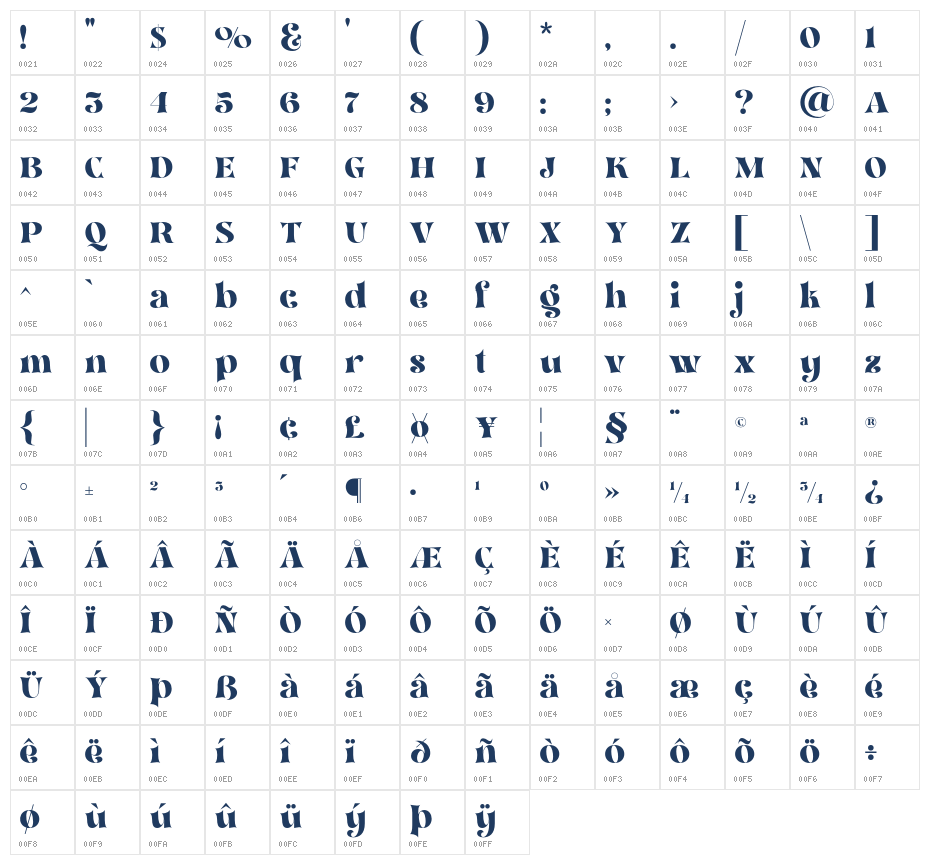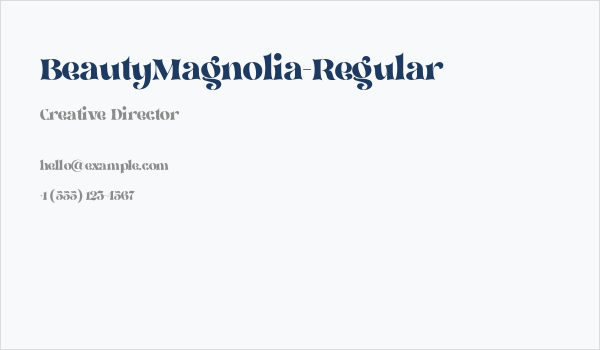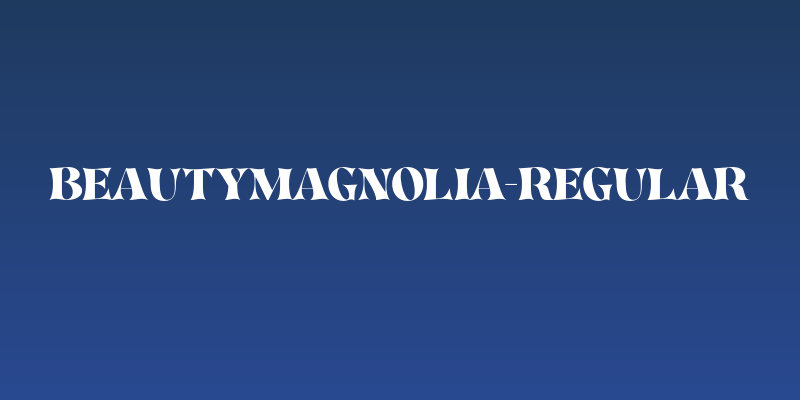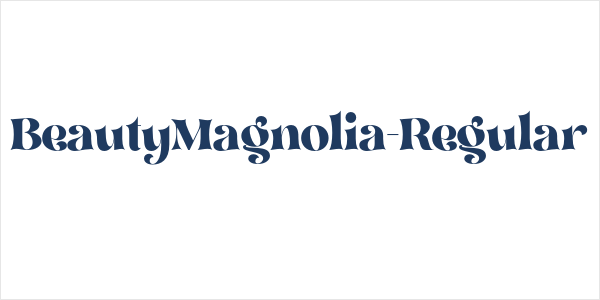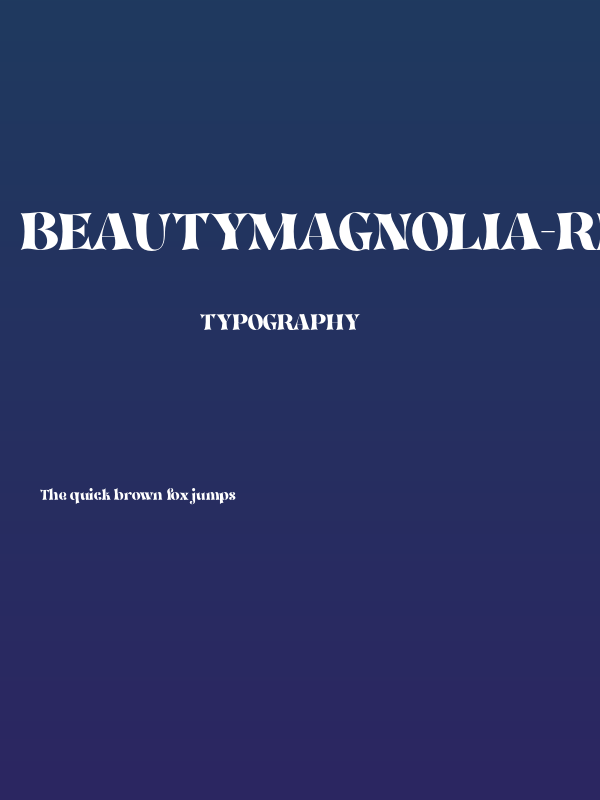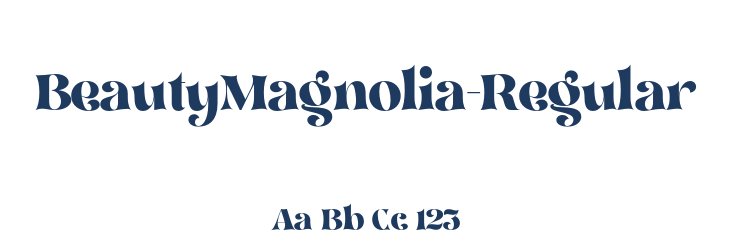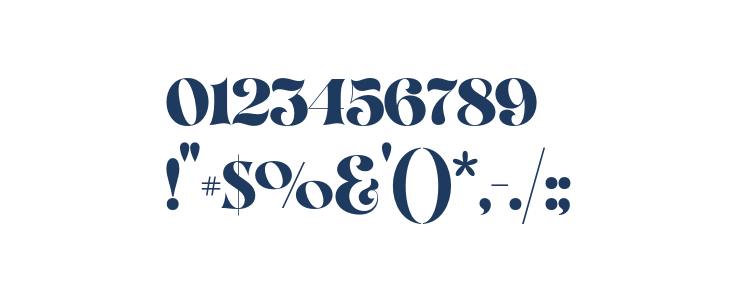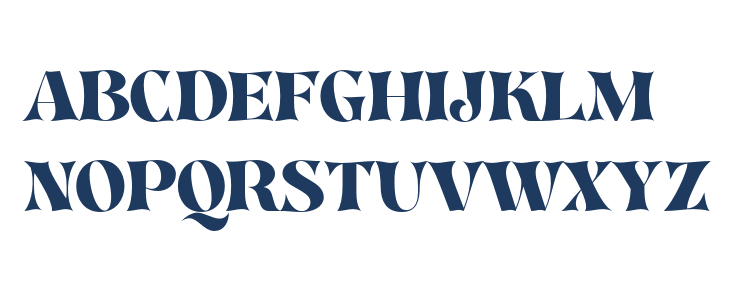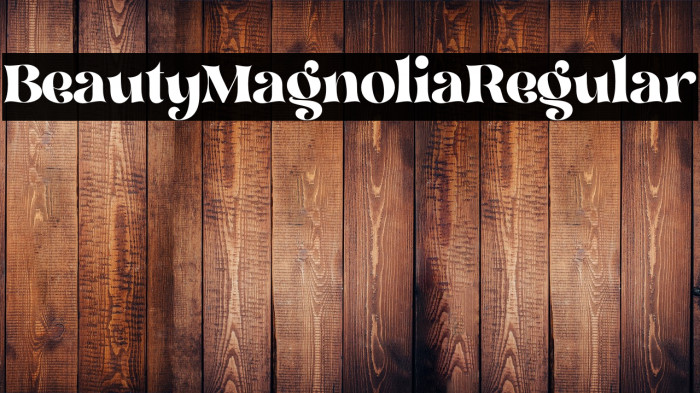
BeautyMagnolia-Regular Font
BeautyMagnolia-Regular Description
Bold, decorative serif font with a vintage and ornate style, featuring thick strokes and distinctive flourishes.
| Overall Style | Vintage, Ornate, Decorative |
| Use Case | Headlines, Logos, Posters, Branding |